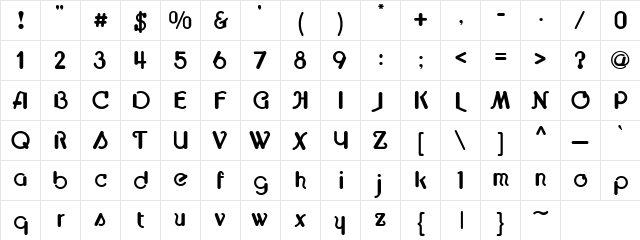
Junio Heavy Regular
Design Context for Junio Heavy Typeface
Junio Heavy takes a measured approach to typography — its balanced proportions and neutral character make it a reliable workhorse for both digital and print work.